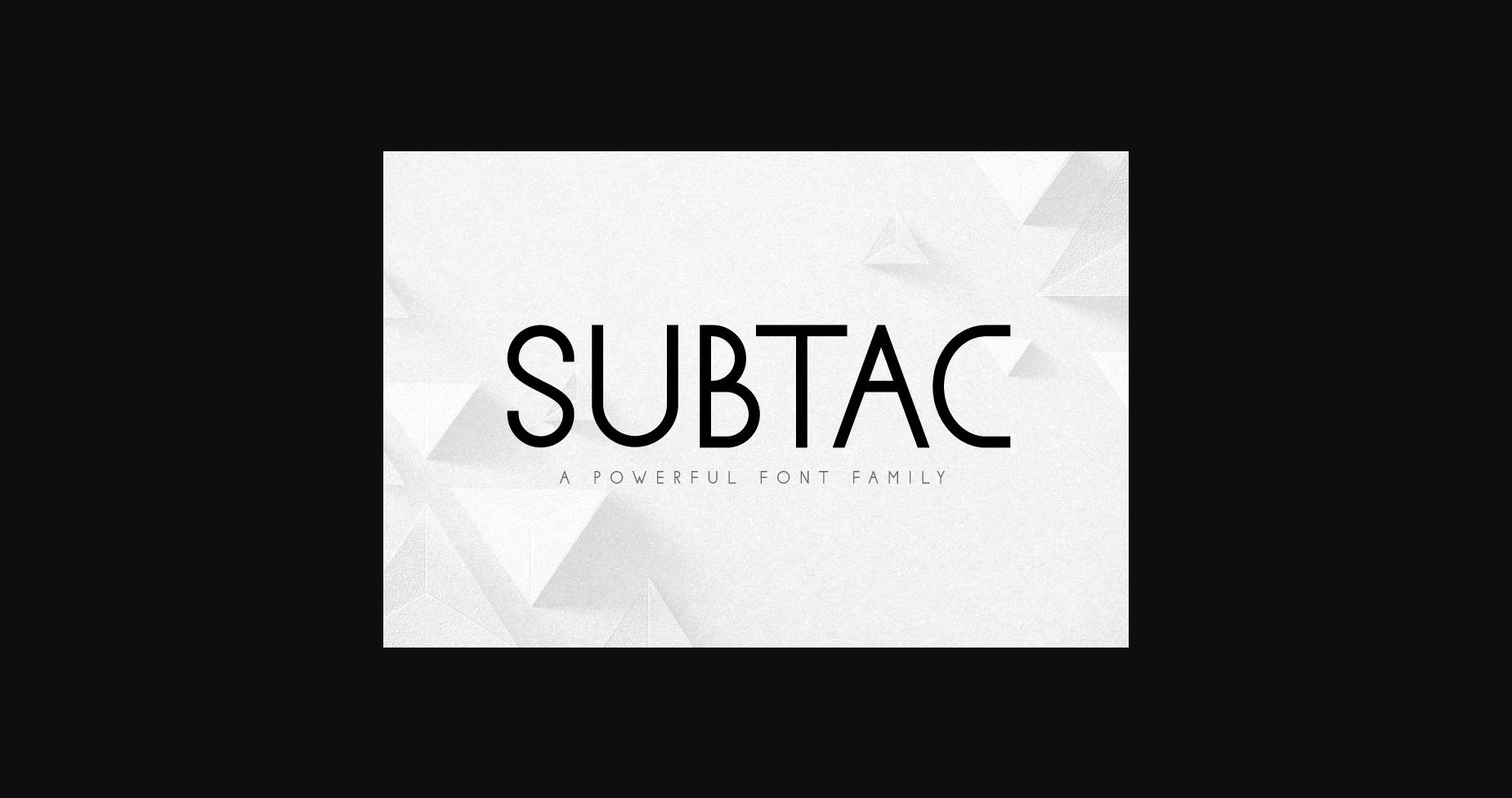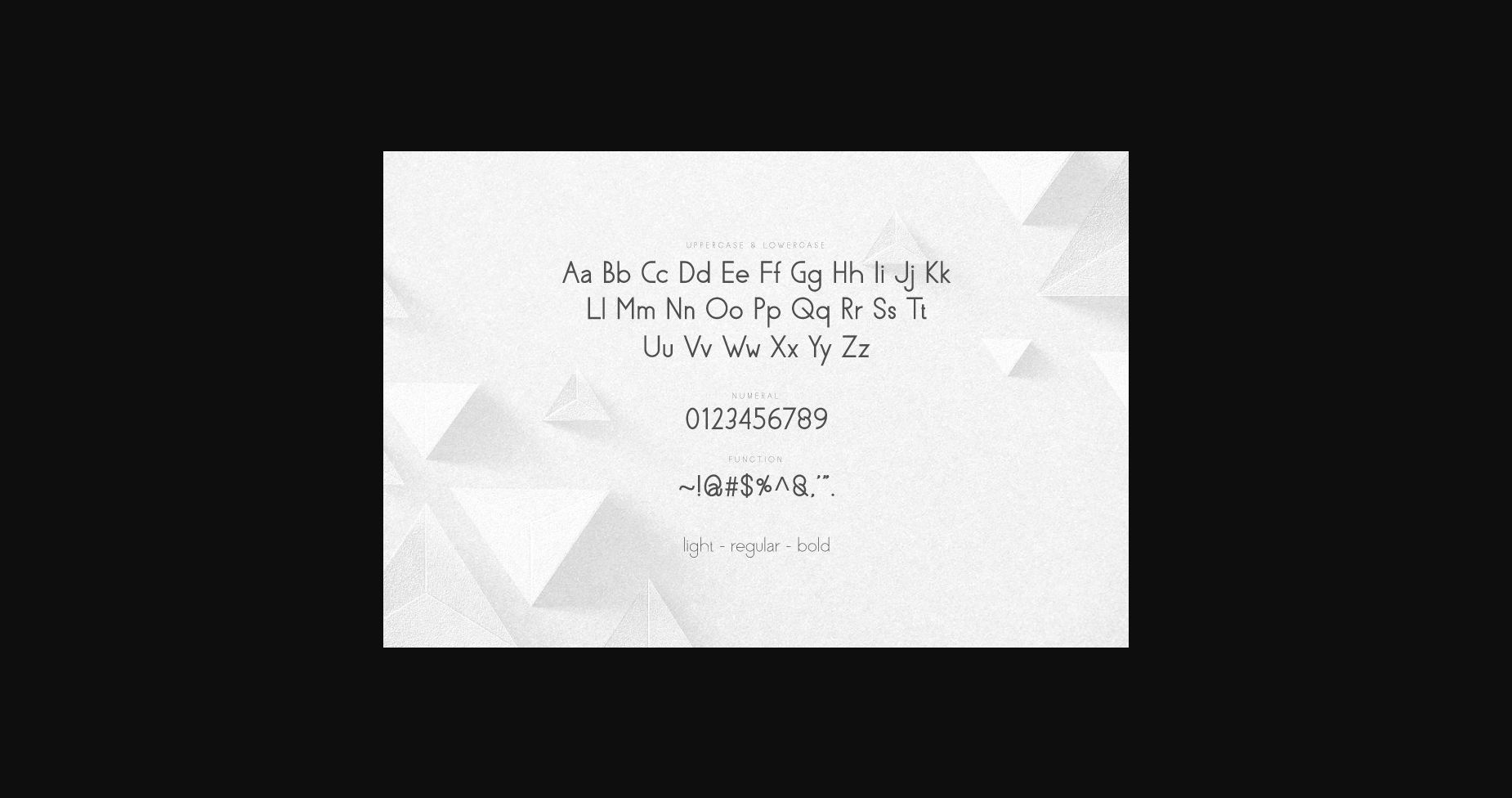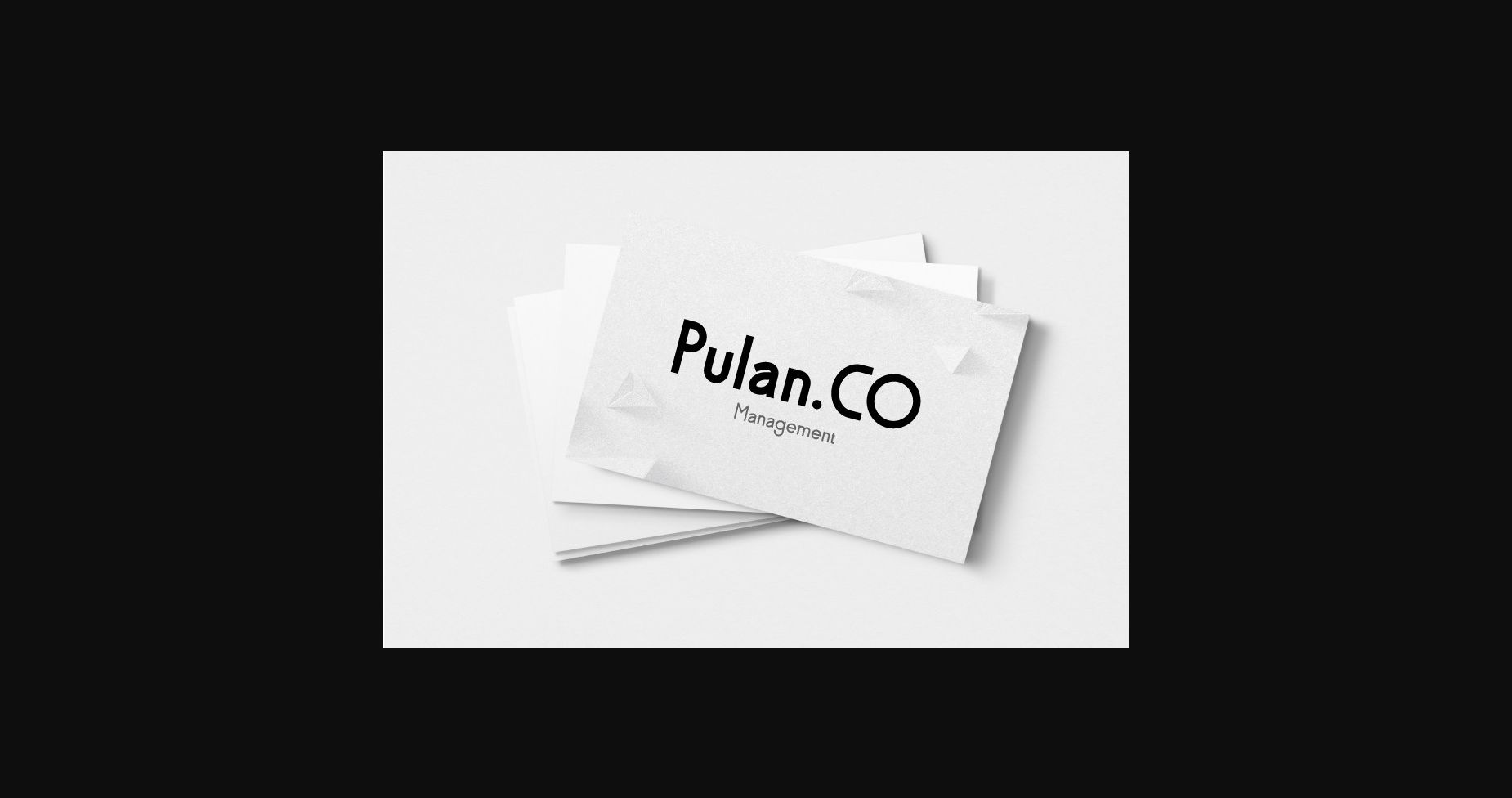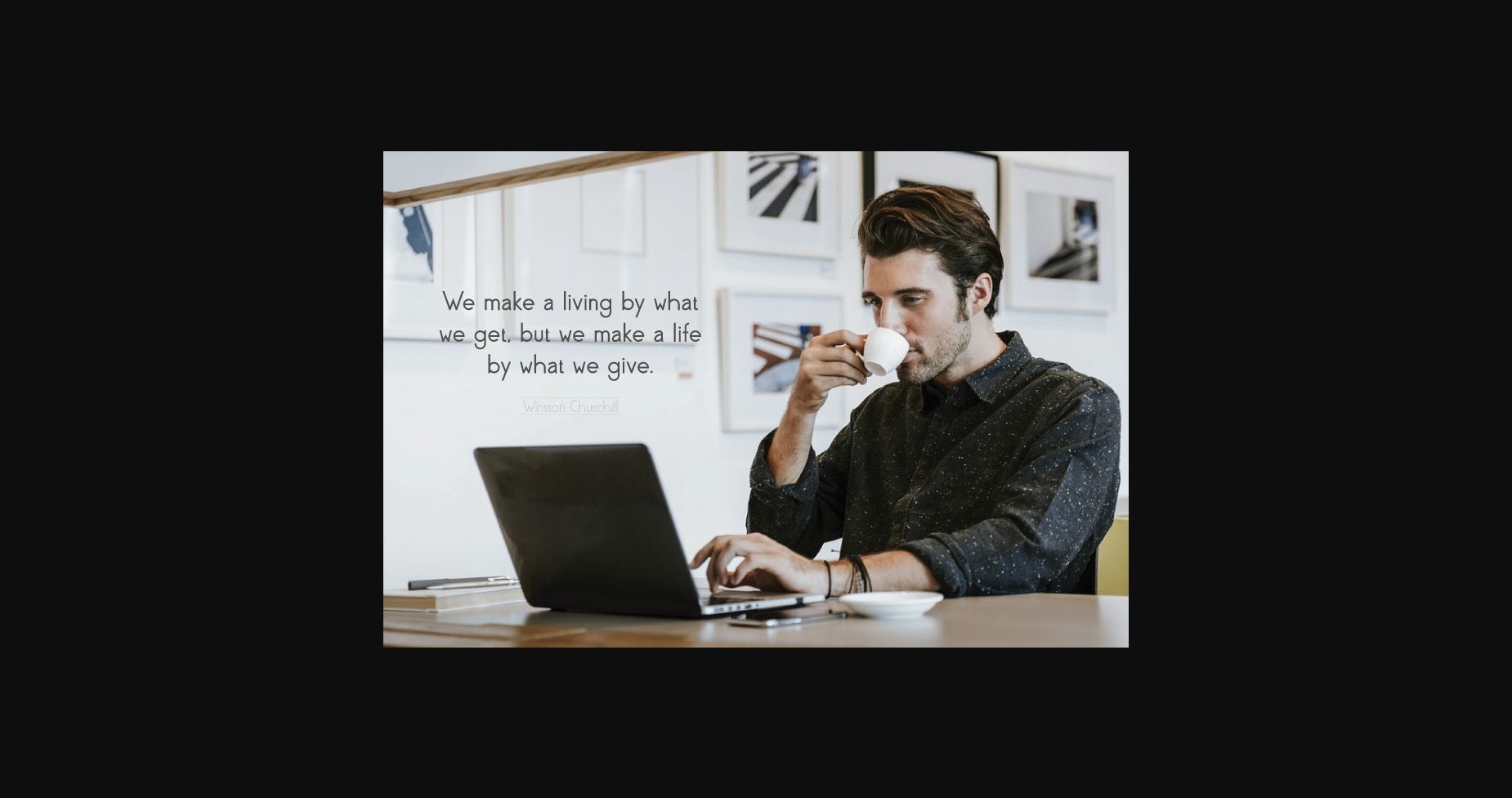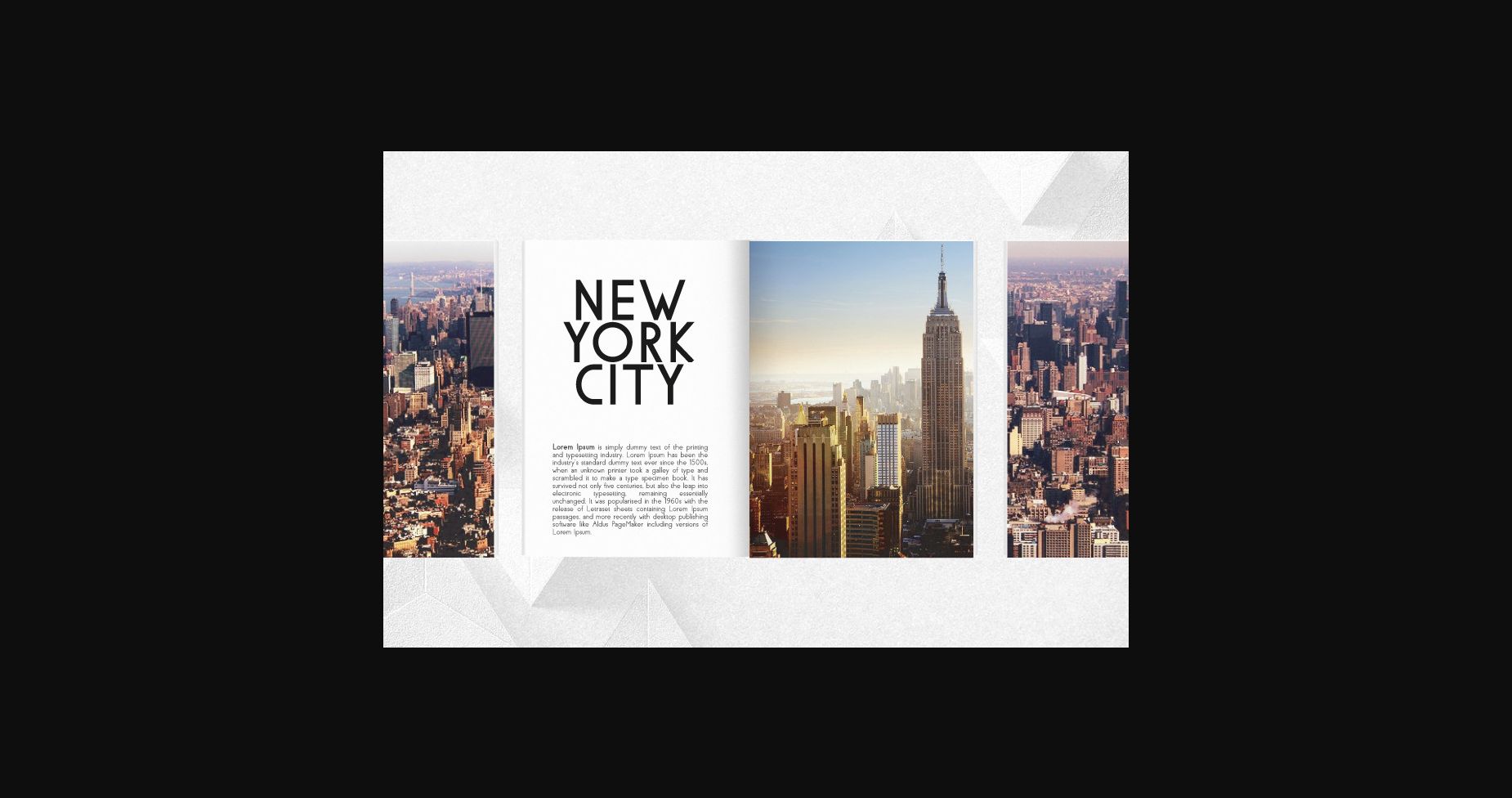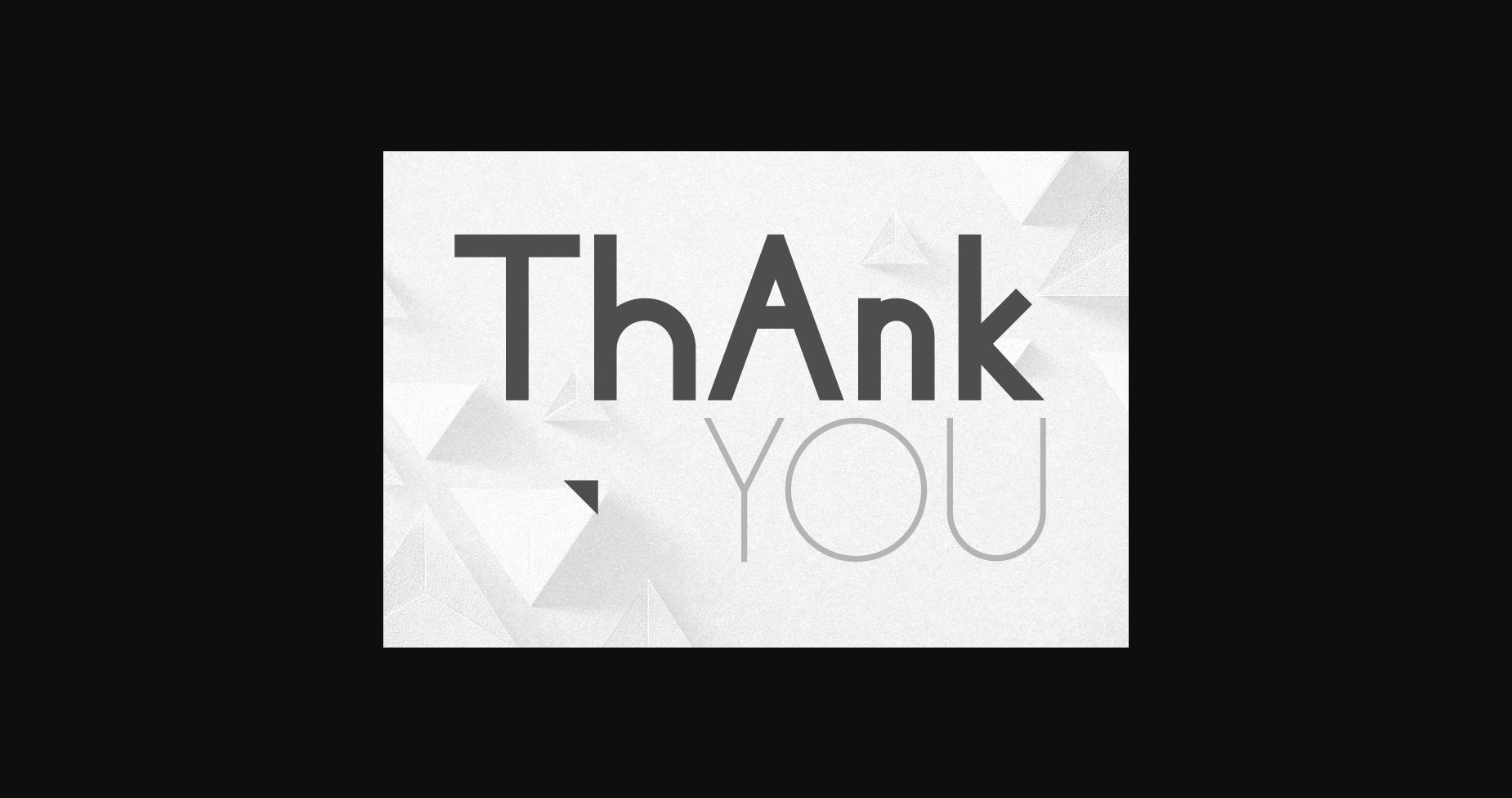
Sans Serif Fonts Subtac Font 0 256 FacebookTwitterPinterestWhatsApp 1 of 8 ... Subtac Font Poster 2... Subtac Font Poster 3... Subtac Font Poster 4... Subtac Font Poster 5... Subtac Font Poster 6... Subtac Font Poster 7... Subtac Font Poster 8... About Subtac Font Subtac is an elegant sans serif font featuring minimalist characters and a modern, clean style! It’s perfect for logos, name cards, magazine layouts, invitations, headers, or even large-scale artwork. DOWNLOAD NOW